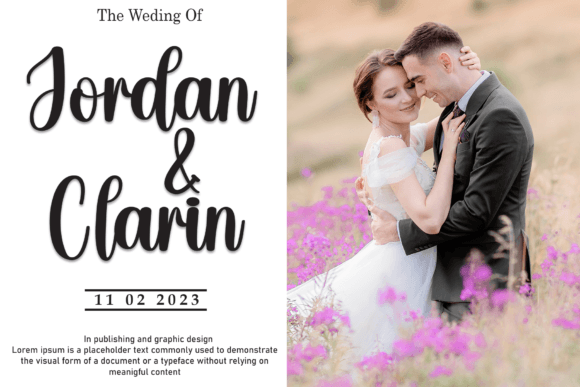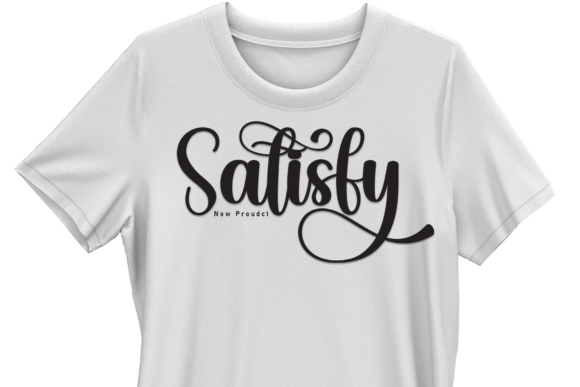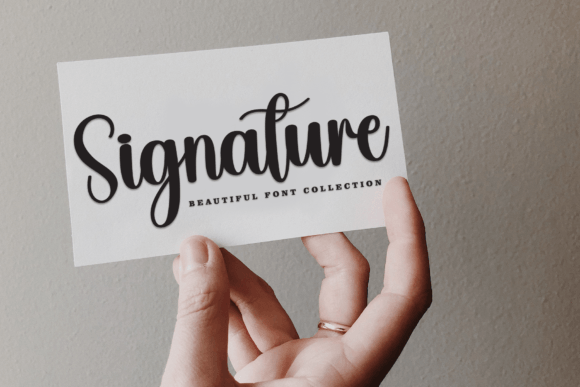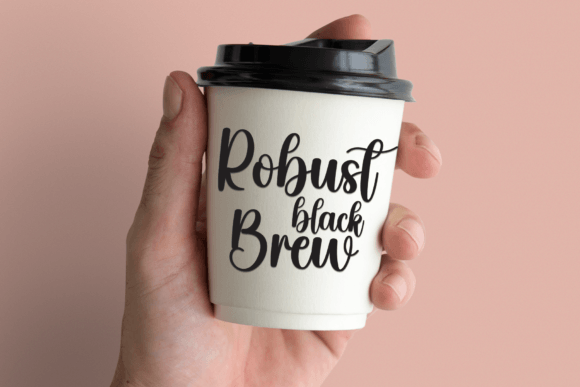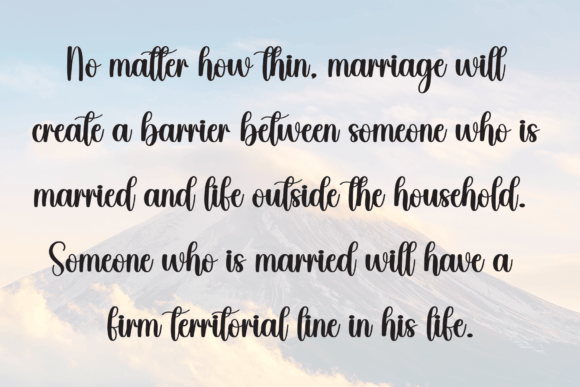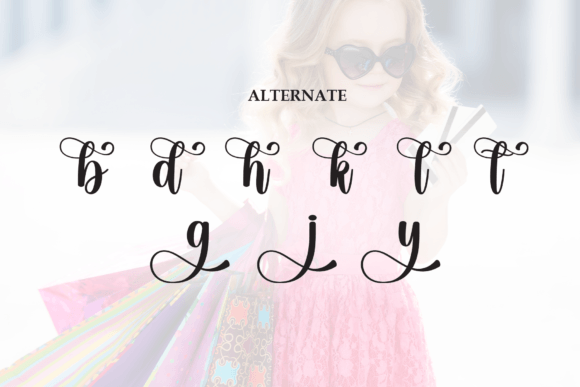
As a designer, there’s nothing quite like the thrill of discovering a new font that sparks creativity and sets your imagination ablaze. For many, this moment comes when stumbling upon the perfect handwritten font to match the tone of a project. And for those looking to inject a playful touch into their designs, the Barbie Activity Font is sure to be a delightful find.
Barbie Activity is a charming, friendly display font designed to bring a smile to any design. Its cute and fun style makes it an ideal choice for wedding invitations, greeting cards, or any other project that calls for a lighthearted feel. With its versatility and effortless charm, this font is a valuable asset for designers seeking to add a touch of whimsy to their work.
Barbie Activity Font Key Features
- Font Style: A playful, cursive font designed for children’s activities and educational materials.
- Unique Character: The font includes a range of special characters, including accents, punctuation, and emojis, making it ideal for creative projects.
Barbie Activity Font Review
As a designer, I was excited to try out the Barbie Activity Font, but I have mixed feelings about it.
- Colorful and fun aesthetic, perfect for kids’ content
- Easy to read, even at smaller font sizes
- Comes with a range of fun and playful characters
- Limited font weights and styles, which can make it feel a bit restrictive
- Not suitable for more formal or professional content
- Some characters may be a bit too bold or distracting in certain contexts
Overall, the Barbie Activity Font is a fun and playful font that’s perfect for kids’ content or other projects where you want to add a bit of whimsy. However, it may not be the best choice for more formal or professional projects. With a bit more development to add more font weights and styles, I think this font has a lot of potential.
The Barbie Activity Font is perfect for creating playful and child-friendly designs. Some common use cases include:
- Designing children’s party invitations and decorations.
- Creating educational materials and worksheets.
- Developing branding and marketing materials for kids’ products.
Remember to experiment with different font sizes, colors, and styles to get the most out of the Barbie Activity Font.